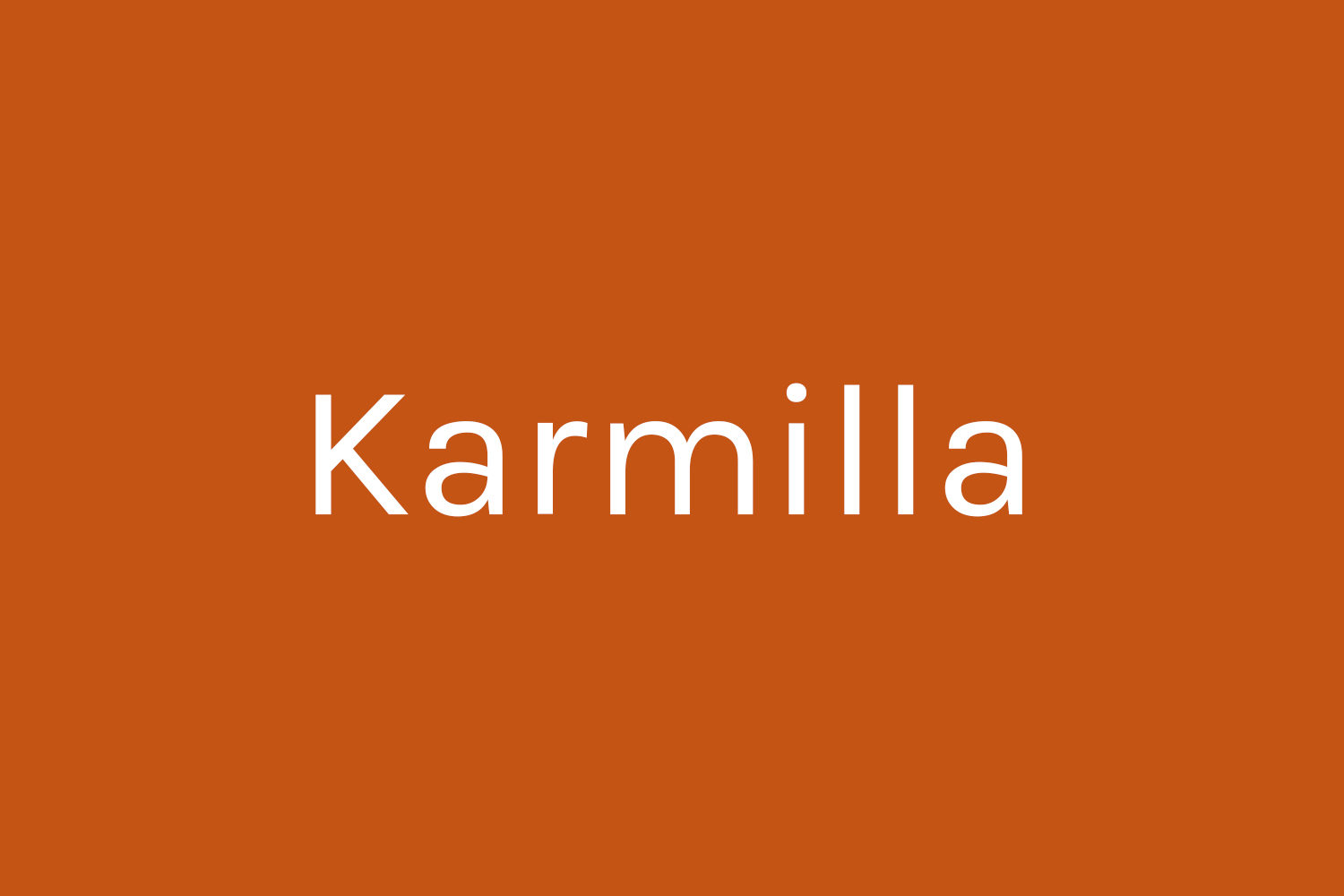
Karmilla Free Font is an expanded version of Karla.
Karla is an outstanding grotesque sans serif typeface family created by Jonathan Pinhorn (@jonpinhorn_type, a graduate of the MA in Typeface Design at the University of Reading), released through Google Webfonts in 2012.
The aim of Karmilla is to offer a workaround for designers who want to use Karla but need support for French, German, Norvegian, Slovak or Icelandic, which requires adding and tweaking some glyphs.